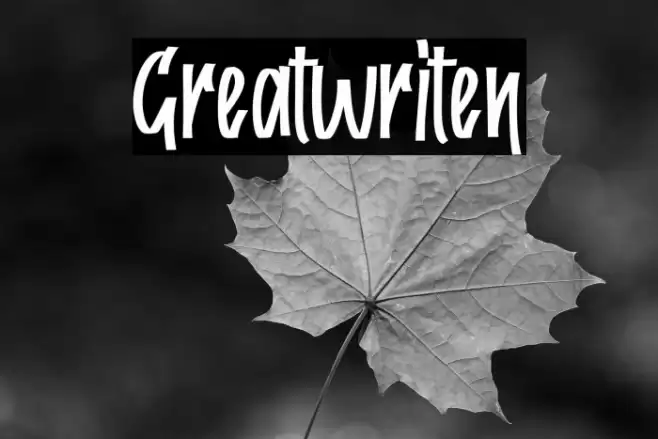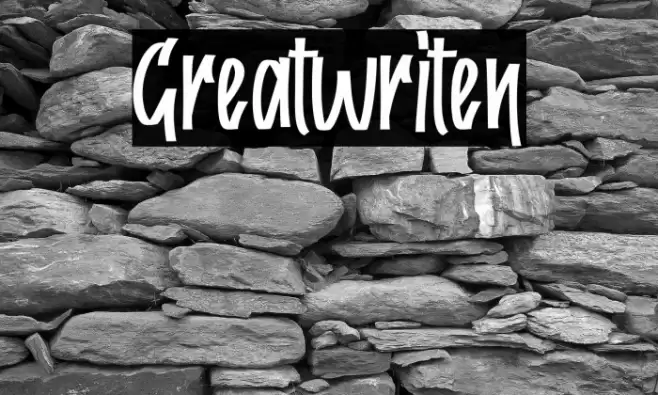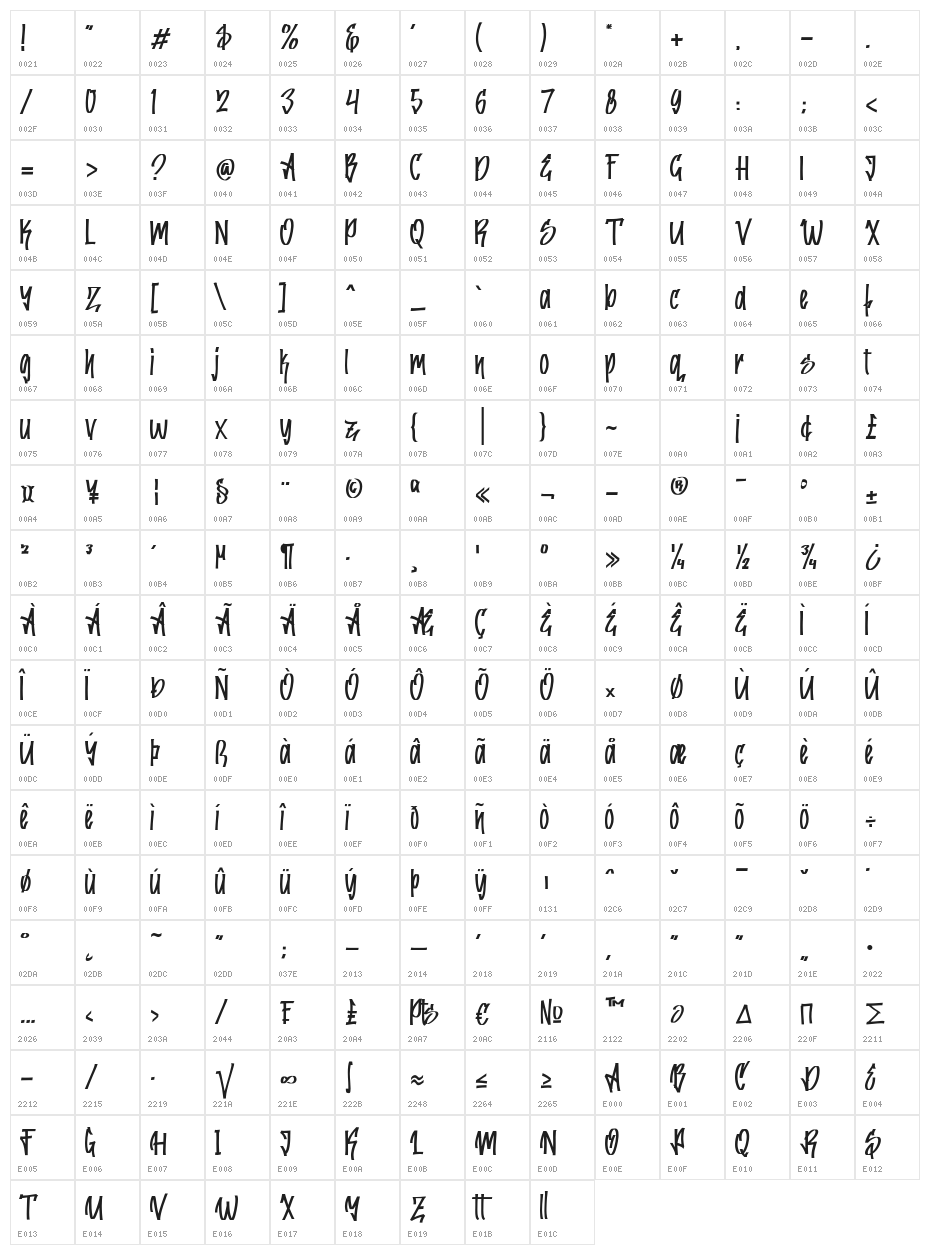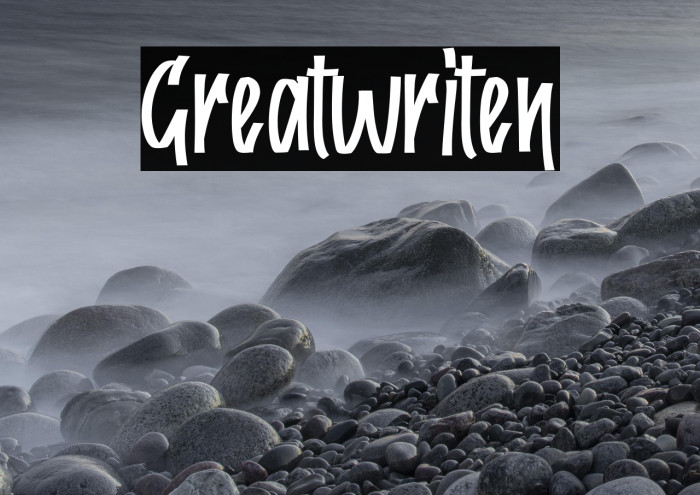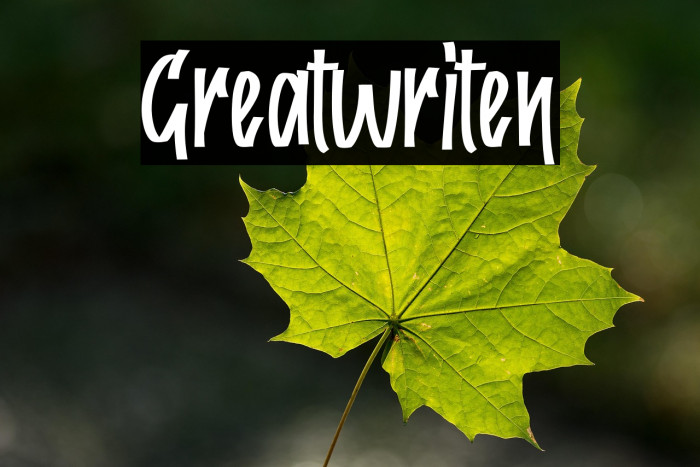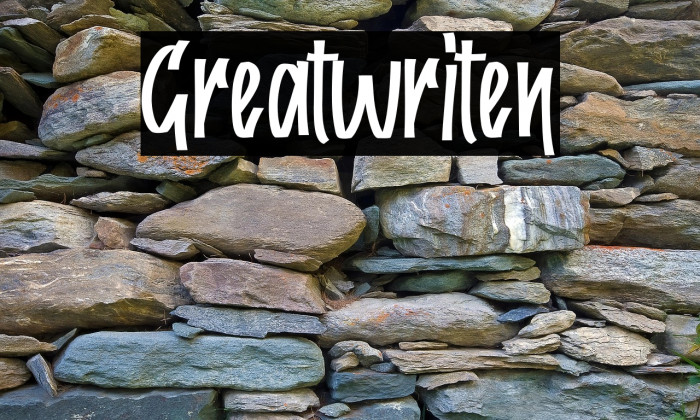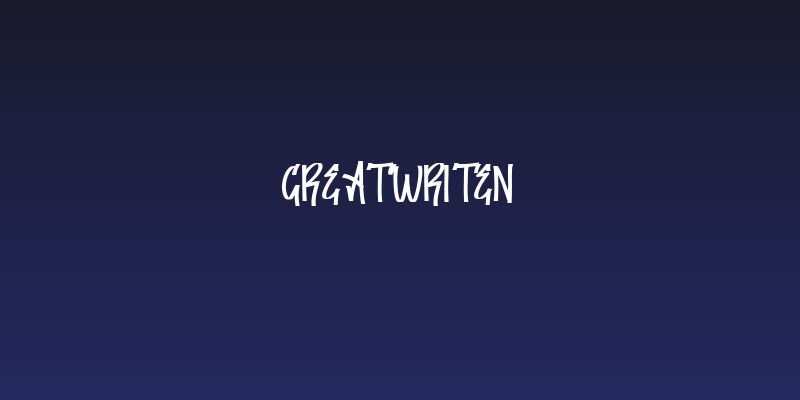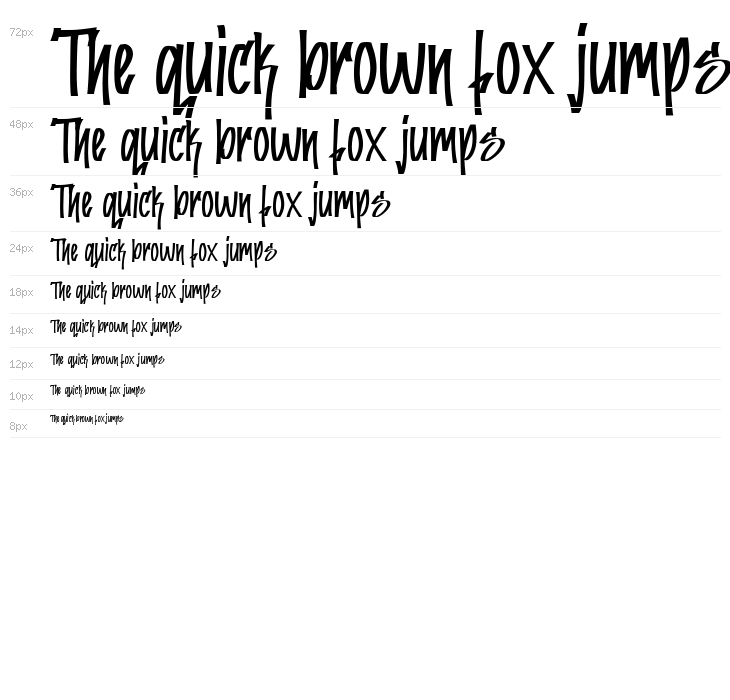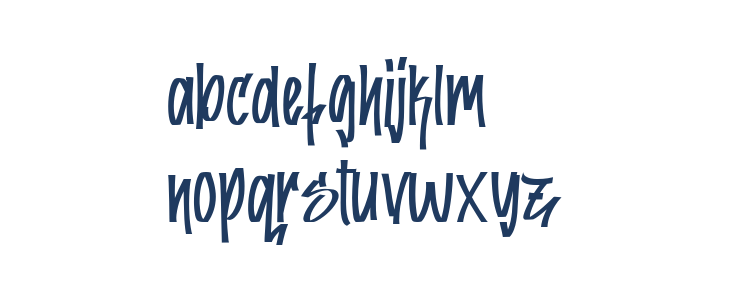
Greatwriten Font
Greatwriten Description
This font features a dynamic and energetic script style with a bold and playful character. The letters are slightly slanted, giving a sense of motion and fluidity. Each character is uniquely crafted with varying stroke widths, adding a touch of artistic flair. The uppercase letters are particularly striking, with exaggerated curves and angles that create a sense of drama. The lowercase letters maintain a consistent style, complementing the uppercase with their own distinct charm. Numbers and special characters are designed to match the overall aesthetic, ensuring a cohesive look across all text. This font is ideal for projects that require a lively and expressive touch.
A bold, playful script font with dynamic, slanted characters from Uncategorized fonts.